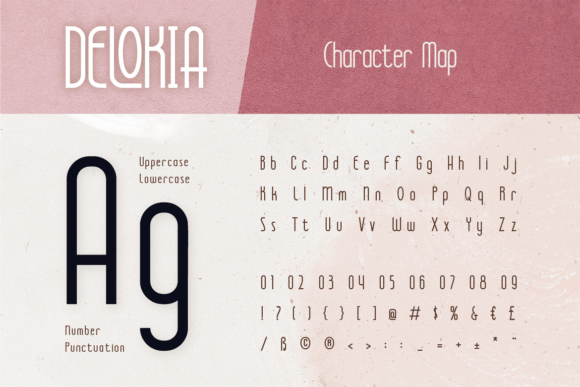
Introducing Delokia Font: Elevate Your Design with Elegance and Sophistication
In the world of typography, fonts play a crucial role in conveying messages, expressing emotions, and creating lasting impressions. Among the numerous fonts available, Delokia stands out as a unique and captivating choice for designers, writers, and artists. This article will delve into the world of Delokia Font, exploring its features, benefits, and applications, as well as provide insights into its versatility and potential uses.
The Delokia Font: A Condensed Font with Visual Elegance
Delokia is a condensed font that boasts visual elegance, making it an ideal choice for various design projects. Its smooth curves and sleek lines create a sophisticated look that can elevate your work to new heights. Whether you’re designing a logo, crafting a social media post, or creating a movie title, Delokia’s condensed structure ensures that your message is conveyed with clarity and style.
Key Features of Delokia Font
- Condensed structure: Delokia’s compact design makes it perfect for use in titles, headings, and short texts.
- Smooth curves: The font’s smooth curves create a visually appealing and elegant look.
- Versatility: Delokia can be used in a wide range of applications, from logo design to long text letters.
Applications of Delokia Font
Delokia’s versatility makes it an excellent choice for various design projects. Here are some of the ways you can utilize this elegant font:
Logo Design
Delokia’s condensed structure and smooth curves make it an ideal choice for logo design. Its unique look can help your brand stand out and create a lasting impression.
Social Media
In the world of social media, Delokia can help you create engaging and visually appealing posts. Its elegant look makes it perfect for use in Facebook, Twitter, Instagram, and other platforms.
Movie Titles and Book Titles
Delokia’s sophisticated look makes it an excellent choice for movie titles and book titles. Its condensed structure ensures that your title is concise and attention-grabbing.
Long Text Letters
While Delokia is condensed, it’s still suitable for use in long text letters. Its smooth curves and elegant look ensure that your message is conveyed with clarity and style.
Pairing Delokia with Other Fonts
Delokia can be paired with various fonts to create a unique and visually appealing look. Here are some font pairing suggestions:
Script Fonts
Pairing Delokia with a script font can create a sophisticated and elegant look. The contrast between the condensed Delokia and the flowing script font can add visual interest to your design.
Sans Fonts
Combining Delokia with a sans font can create a modern and clean look. This pairing is ideal for use in digital designs, such as websites and social media posts.
Serif Fonts
Pairing Delokia with a serif font can add a touch of elegance and sophistication to your design. This combination is perfect for use in traditional designs, such as books and magazines.
Tips for Using Delokia Font
To get the most out of Delokia, here are some tips to keep in mind:
Use Delokia as a Secondary Font
Delokia works best as a secondary font, used to add emphasis or create visual interest. Pair it with a primary font to create a unique and engaging look.
Experiment with Font Sizes
Delokia’s condensed structure makes it versatile for use in various font sizes. Experiment with different sizes to find the perfect balance for your design.
Play with Colors
Delokia’s elegant look can be enhanced with the right color scheme. Experiment with different colors to find the perfect match for your design.
In conclusion, Delokia Font is a versatile and elegant choice for designers, writers, and artists. Its condensed structure, smooth curves, and sophisticated look make it perfect for use in various design projects, from logo design to long text letters. By pairing Delokia with other fonts and experimenting with font sizes and colors, you can create visually appealing and engaging designs that elevate your work to new heights.